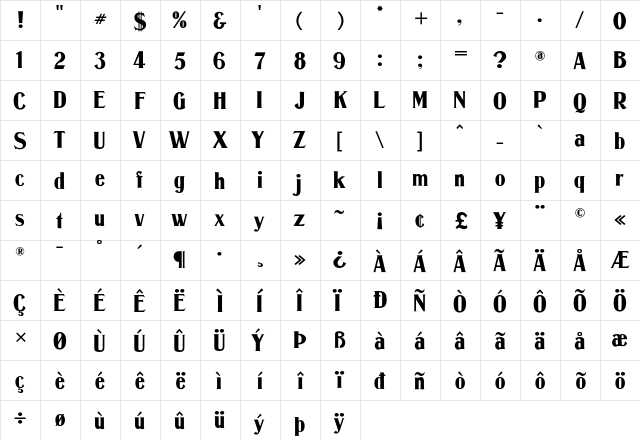
Murden CF ExtraBold Cond Regular Font Preview
| Foundry | Chuck's Fonts |
| Designer | Chuck Mountain, after Nicholas J Werner |
Design Context for Murden CF ExtraBold Cond Typeface
Murden CF ExtraBold Cond takes a measured approach to typography — its balanced proportions and neutral character make it a reliable workhorse for both digital and print work. Its bold stroke weight gives it real presence on the page. The condensed width makes it efficient for tight spaces without sacrificing legibility.